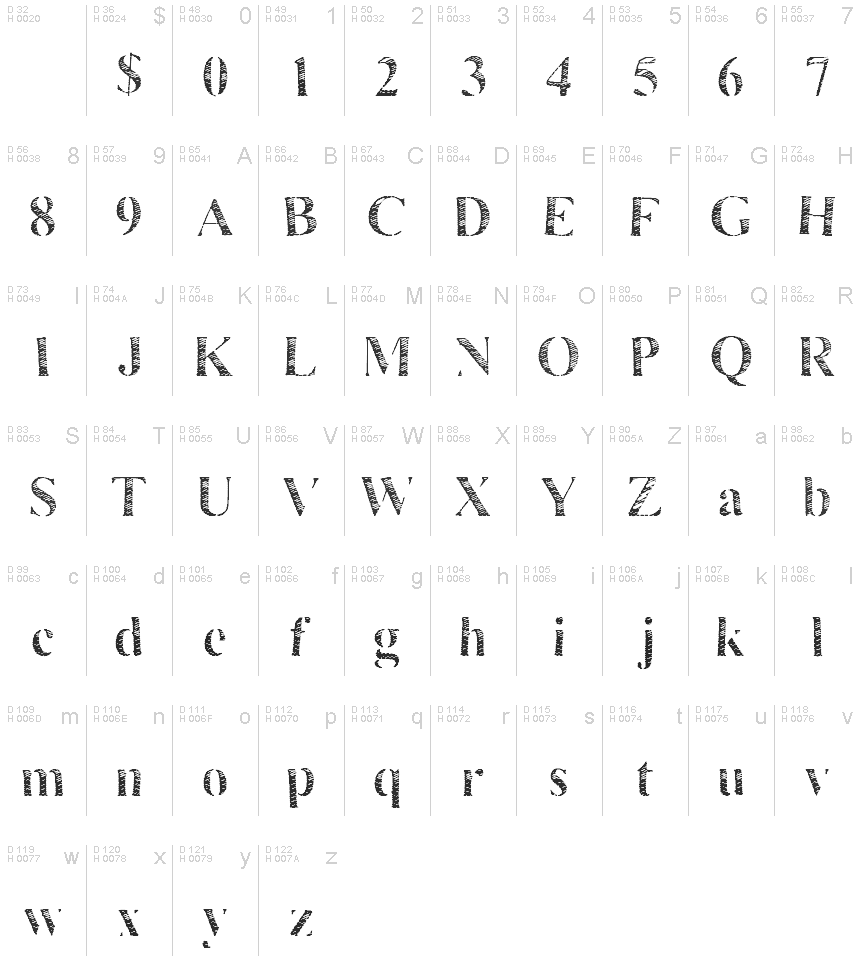
ManyTimes
Many Times is a captivating display font that exudes a raw, weathered aesthetic. Designed by Xerographer Fonts' Max Infeld, this font's eroded, textured strokes convey a sense of aged authenticity, making it an ideal choice for vintage-inspired designs, rustic branding, and eye-catching headlines.
The font's bold, striking presence commands attention, while its irregular edges and imperfections add depth and character. Many Times seamlessly blends the classic and the contemporary, making it a versatile tool for designers seeking to evoke a timeless, gritty ambiance across a variety of applications, from editorial layouts to packaging design.